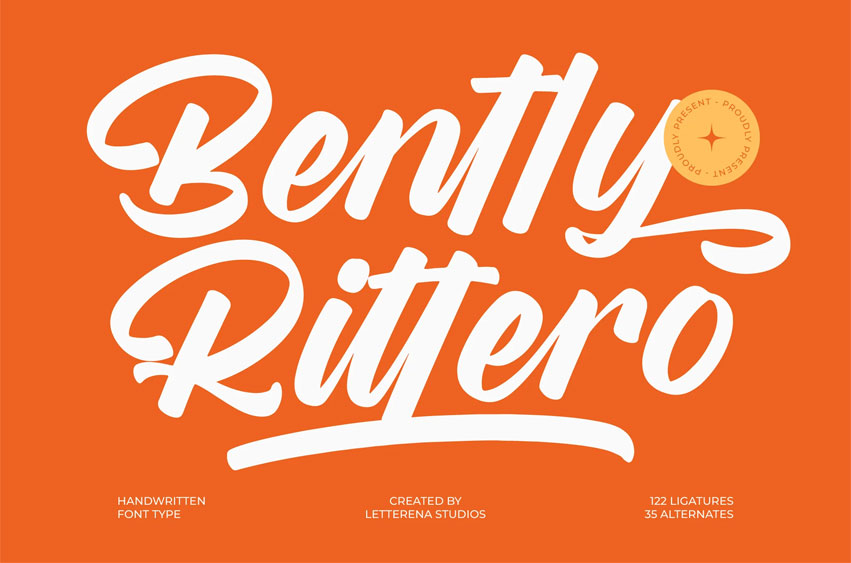
Bently Rittero Font
Bently Rittero Font is suitable to complement your digital and printed creative products. This font is perfect for posters, social media posts, branding, personal projects, etc.